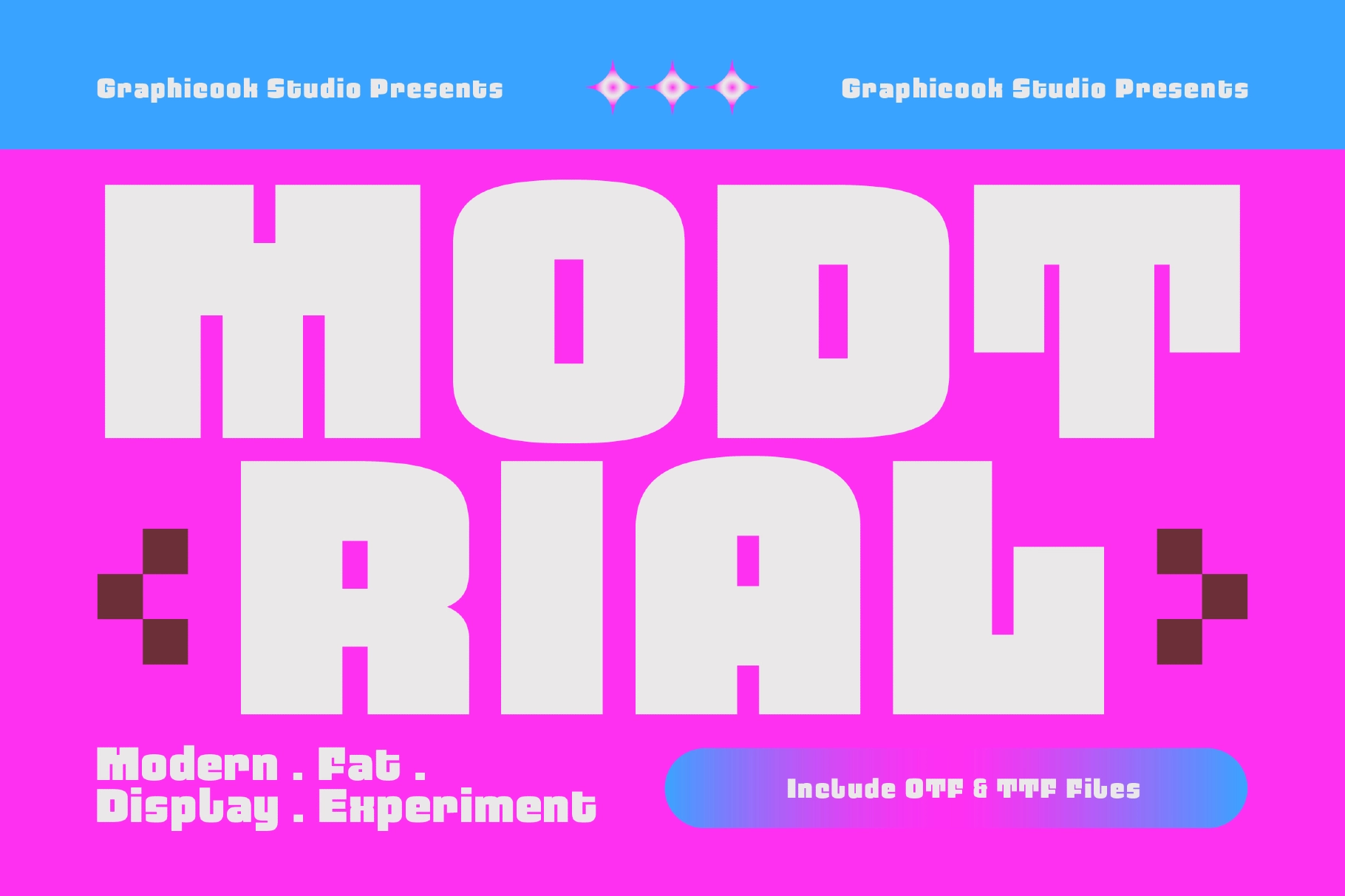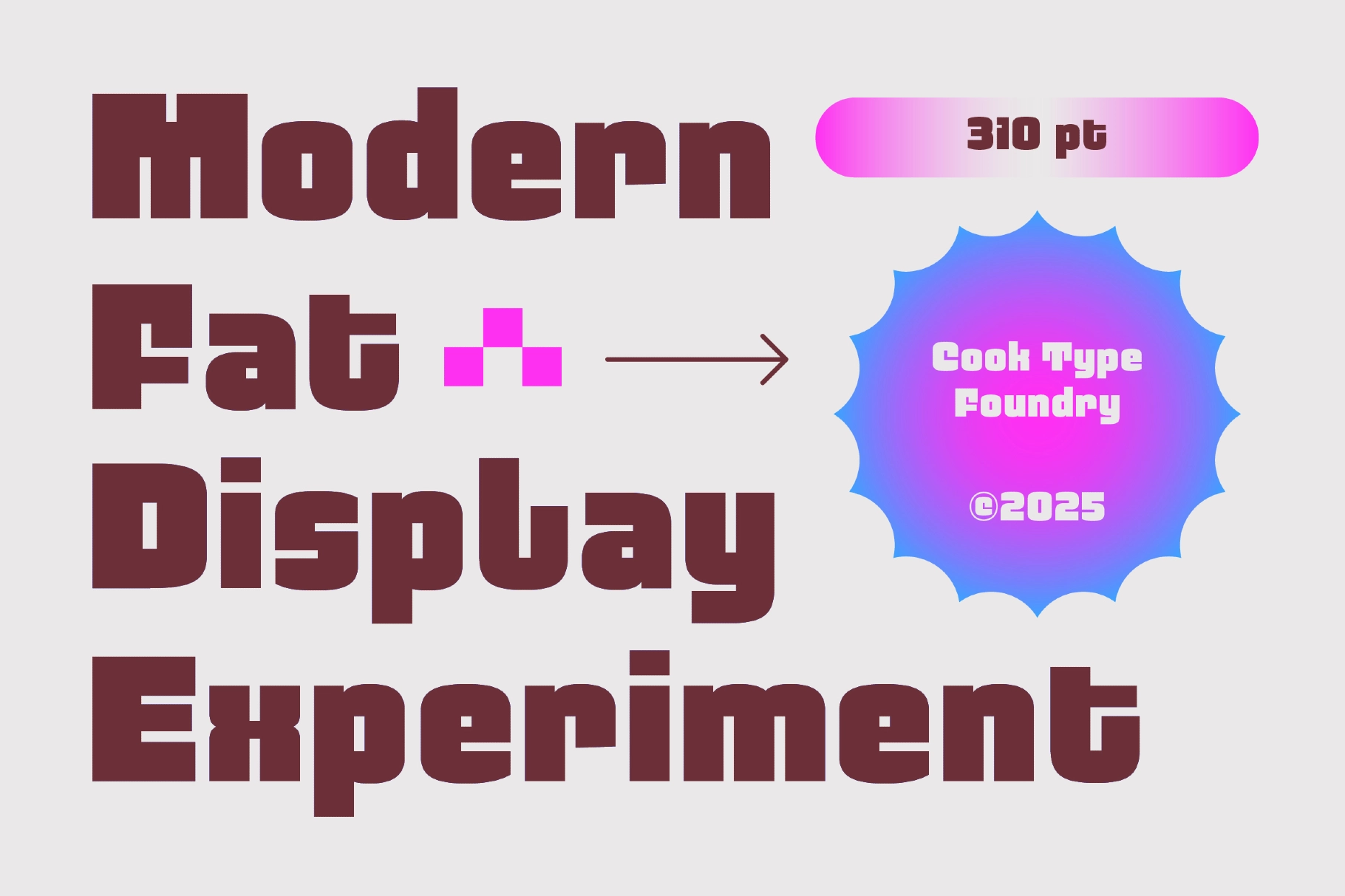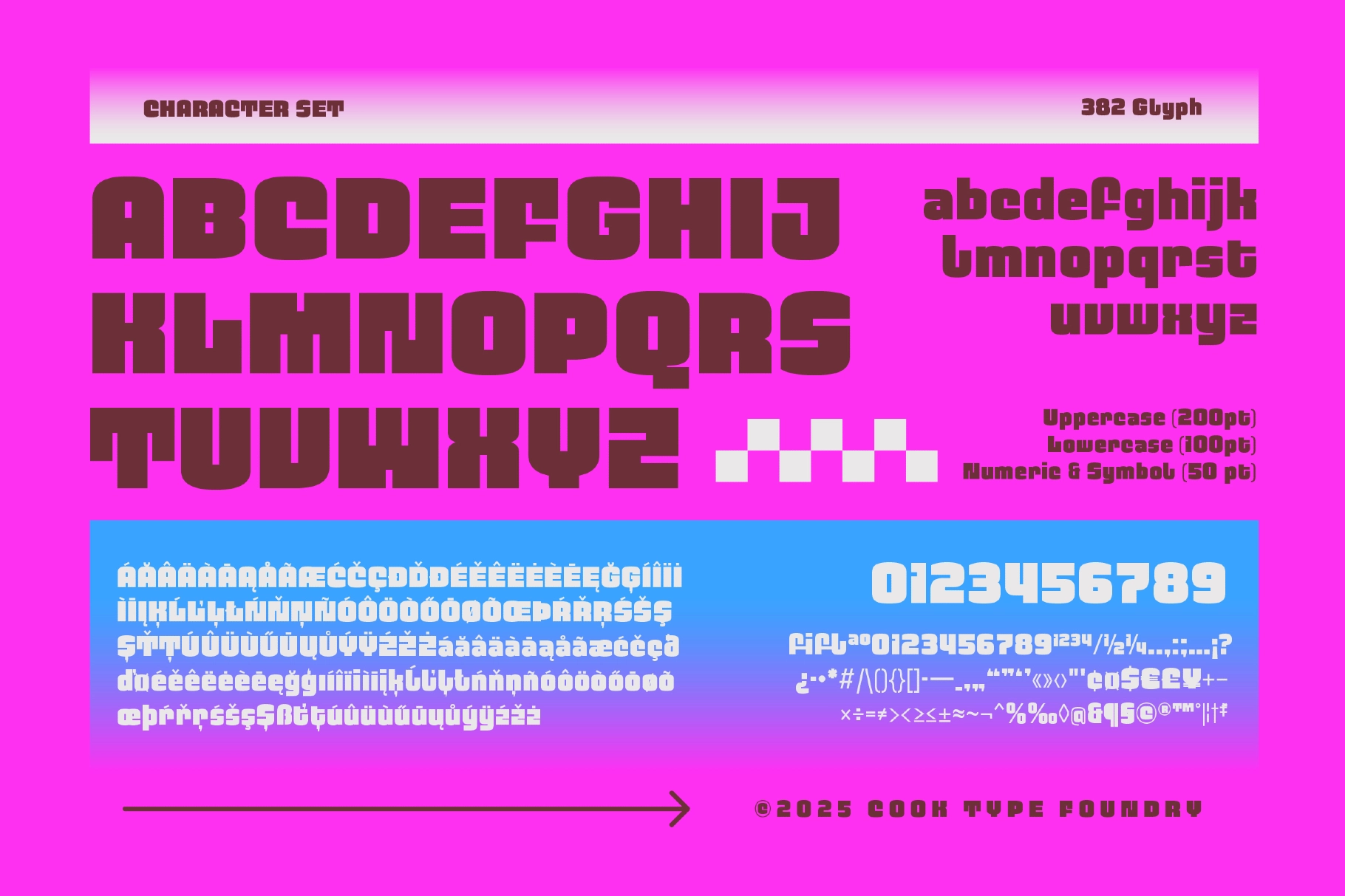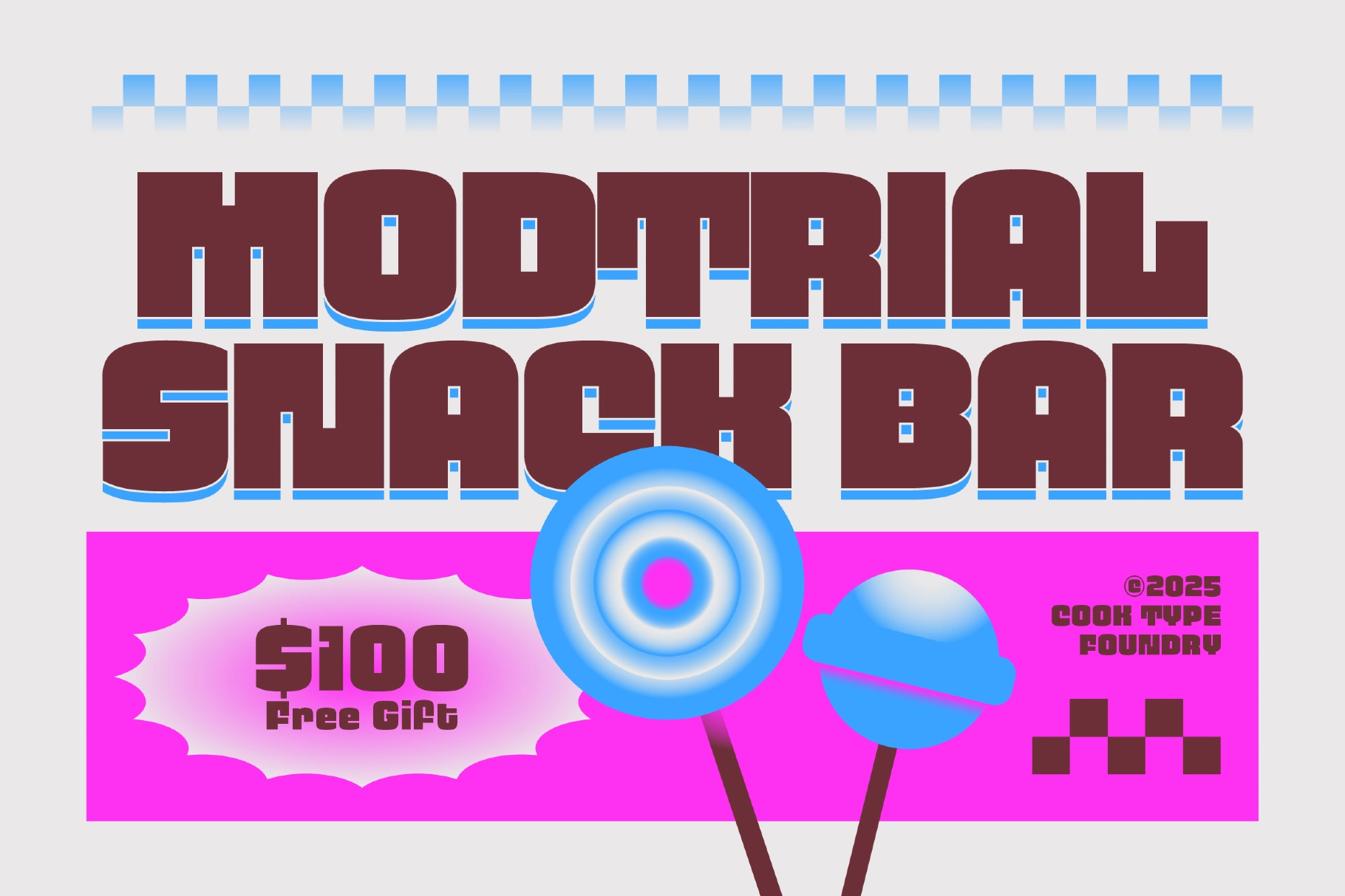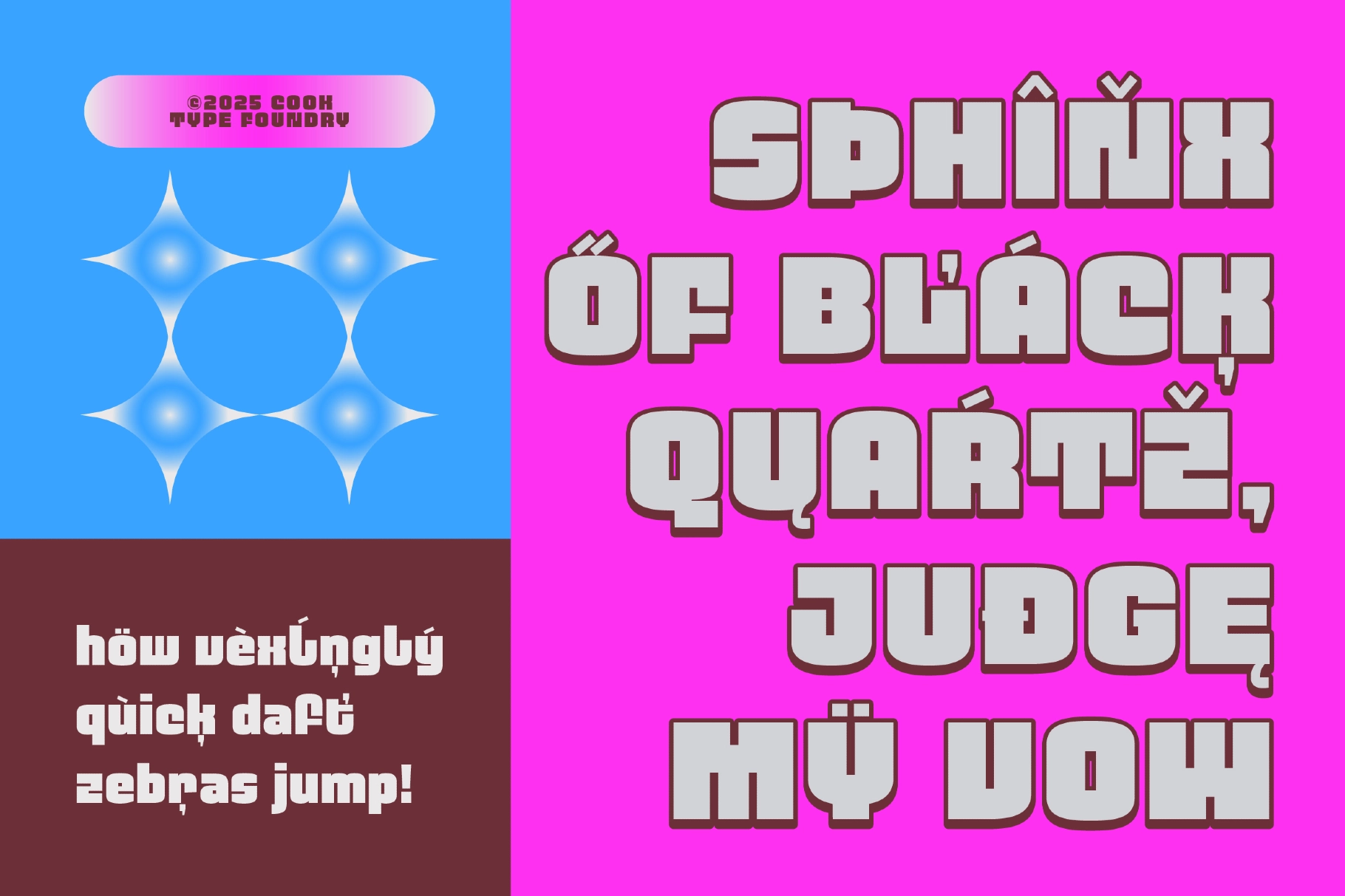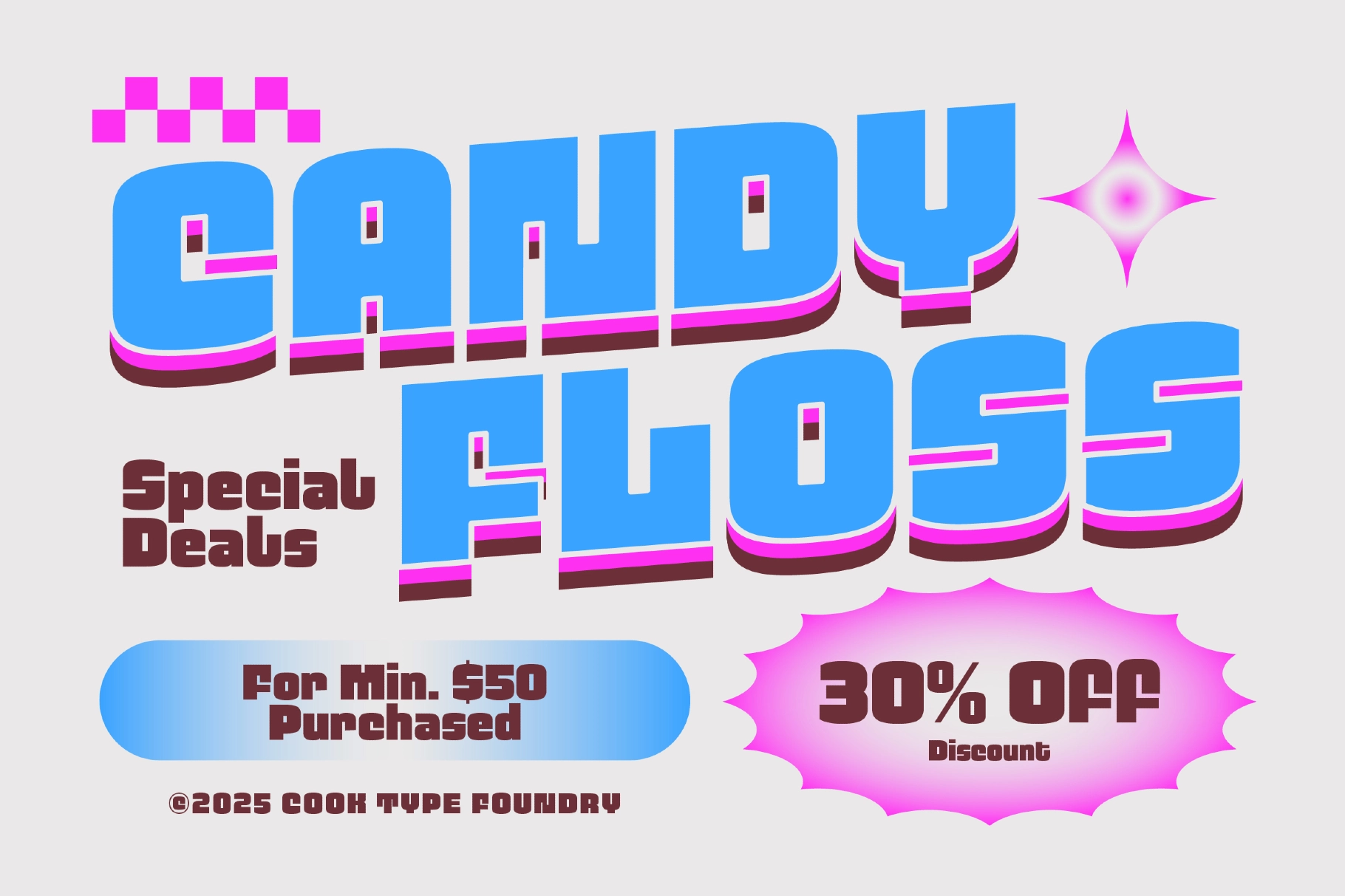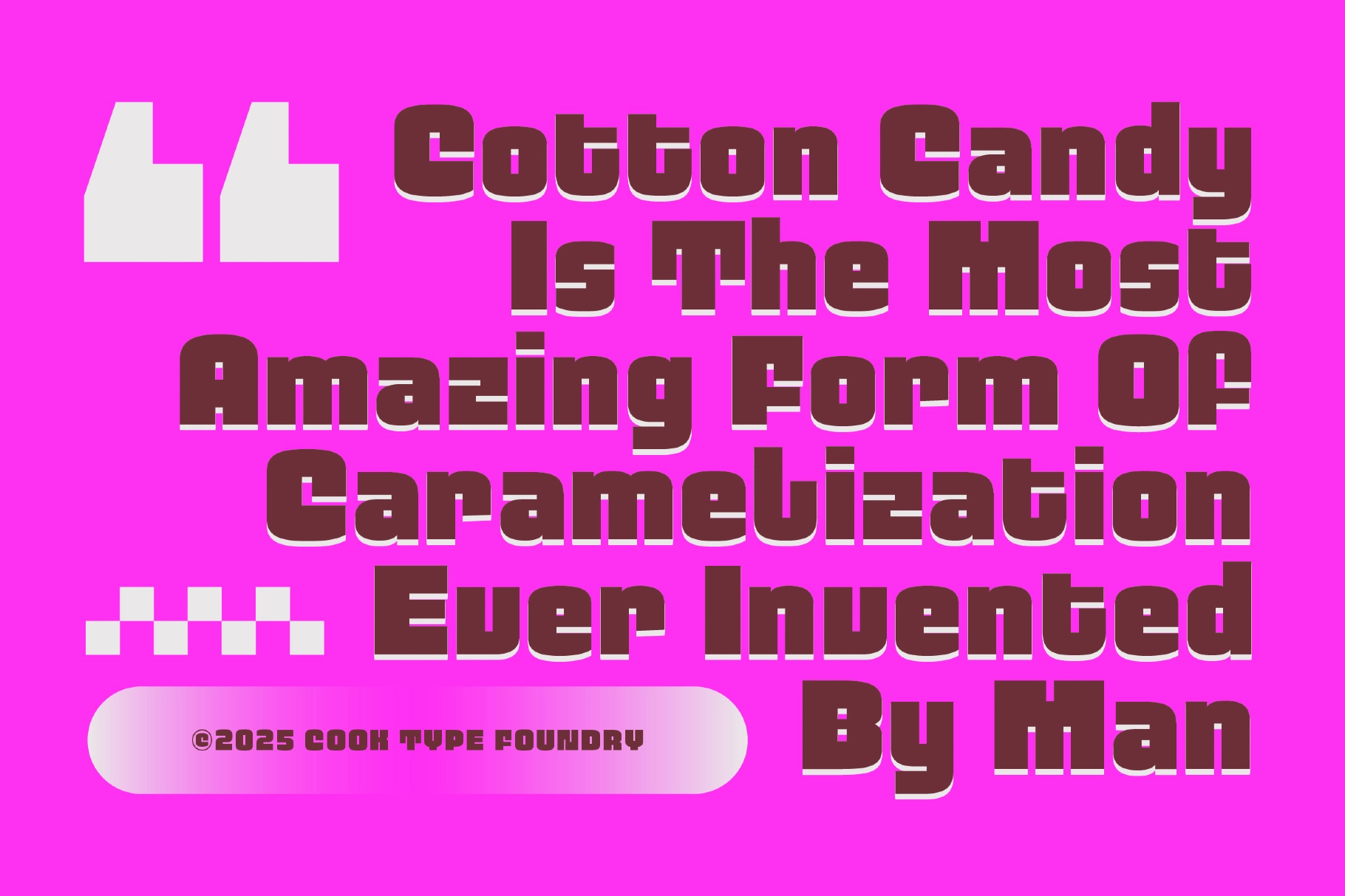
Modtrial Font
Modtrial is an experimental font with fat letterforms and a bold minimalist design, creating a strong and impactful impression. Great for headlines, logos, or posters for electronic music and festivals.